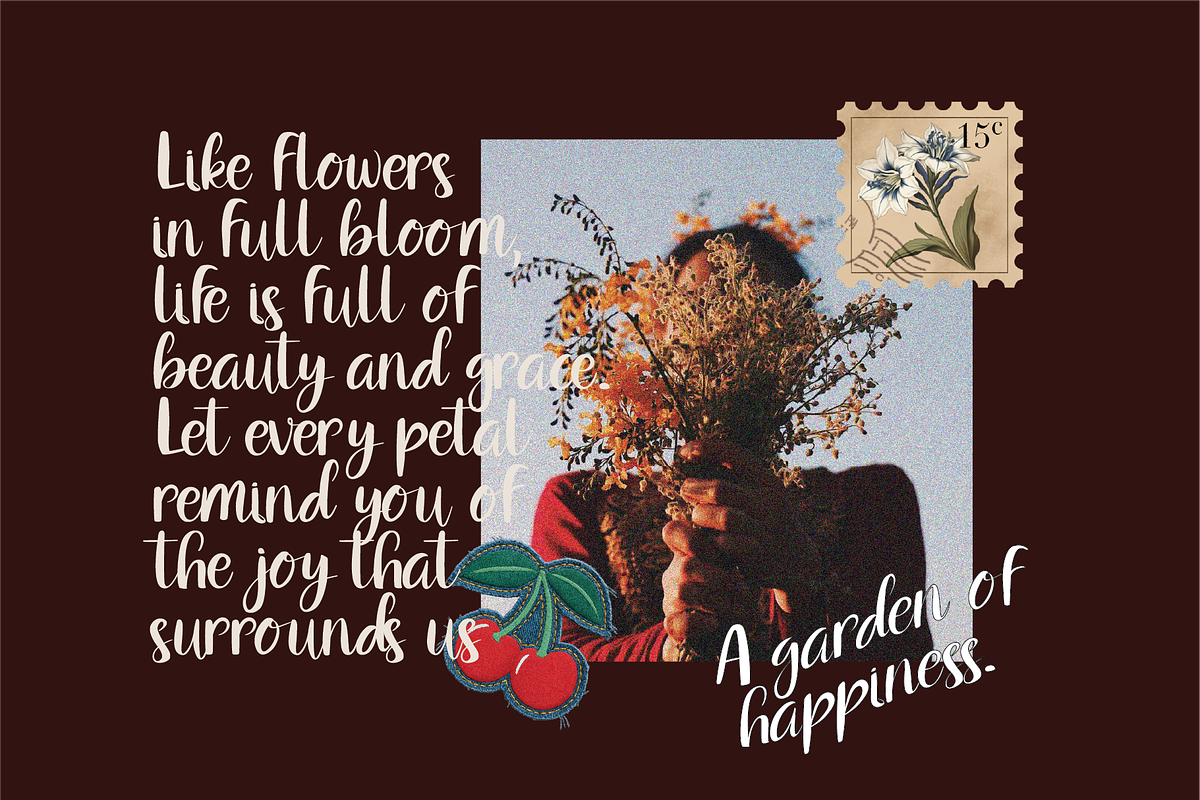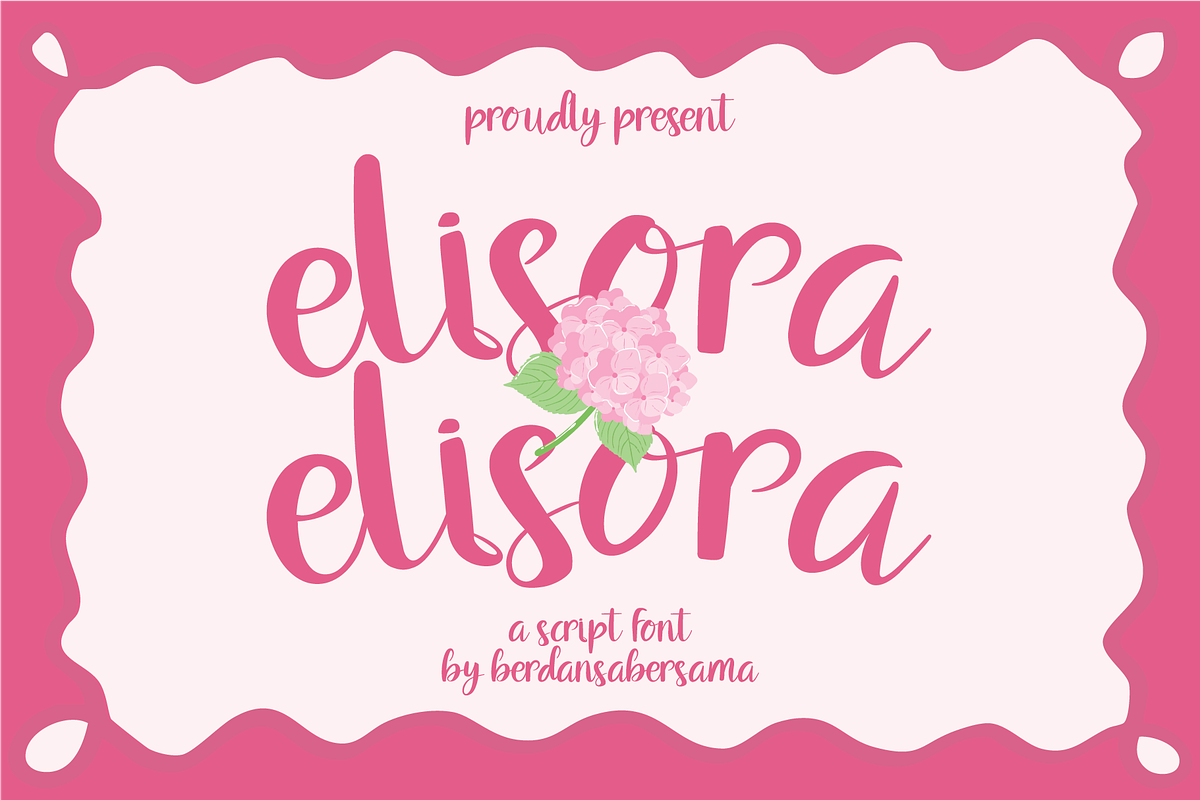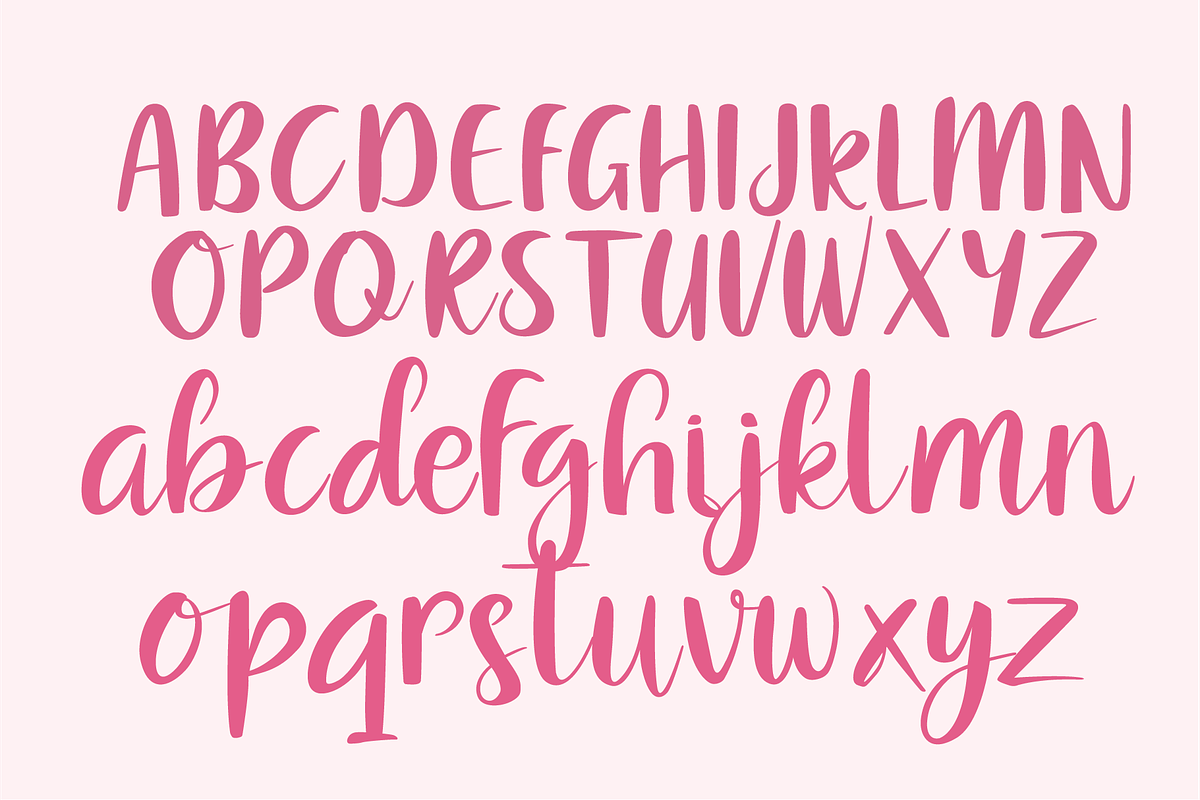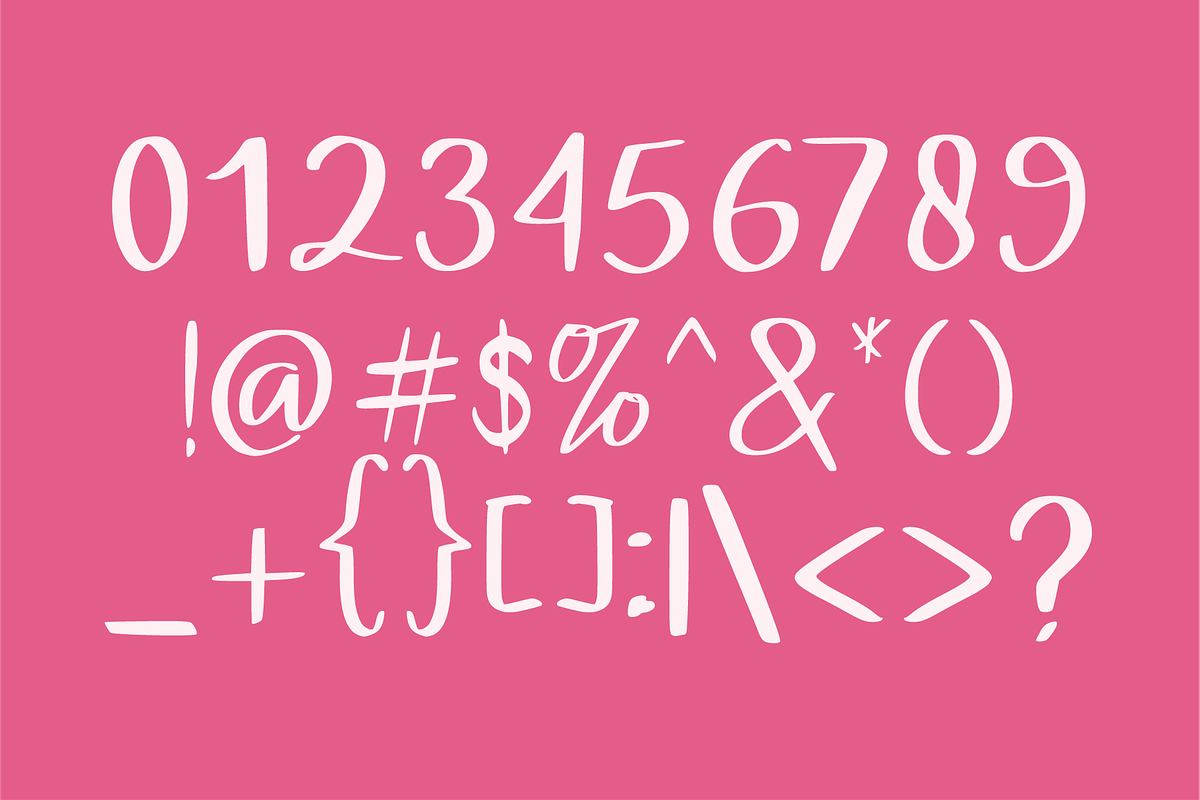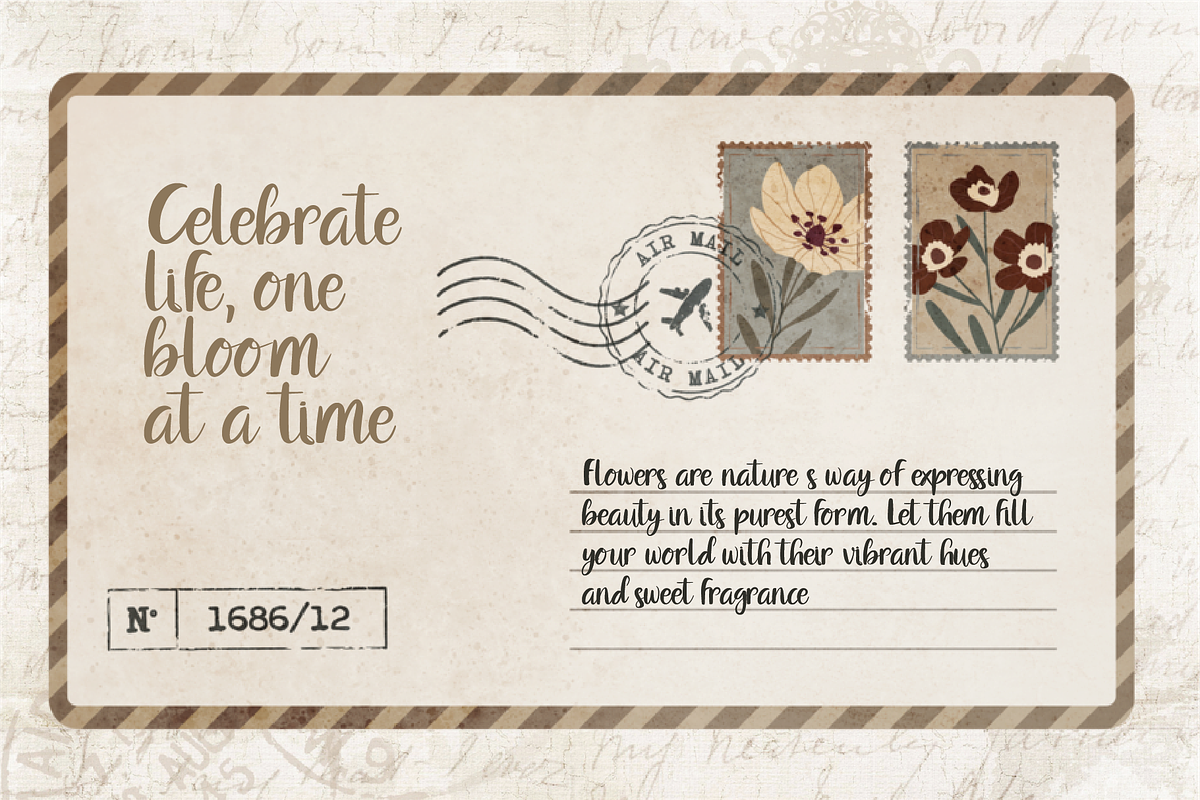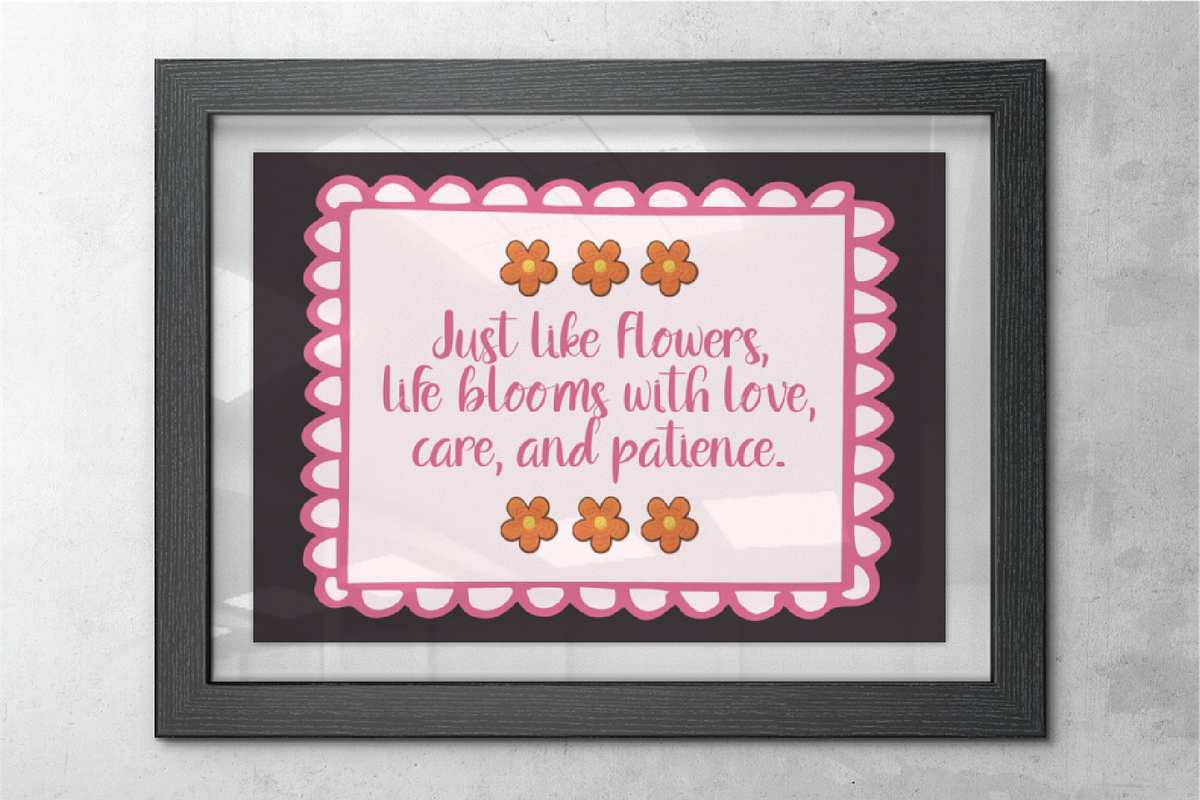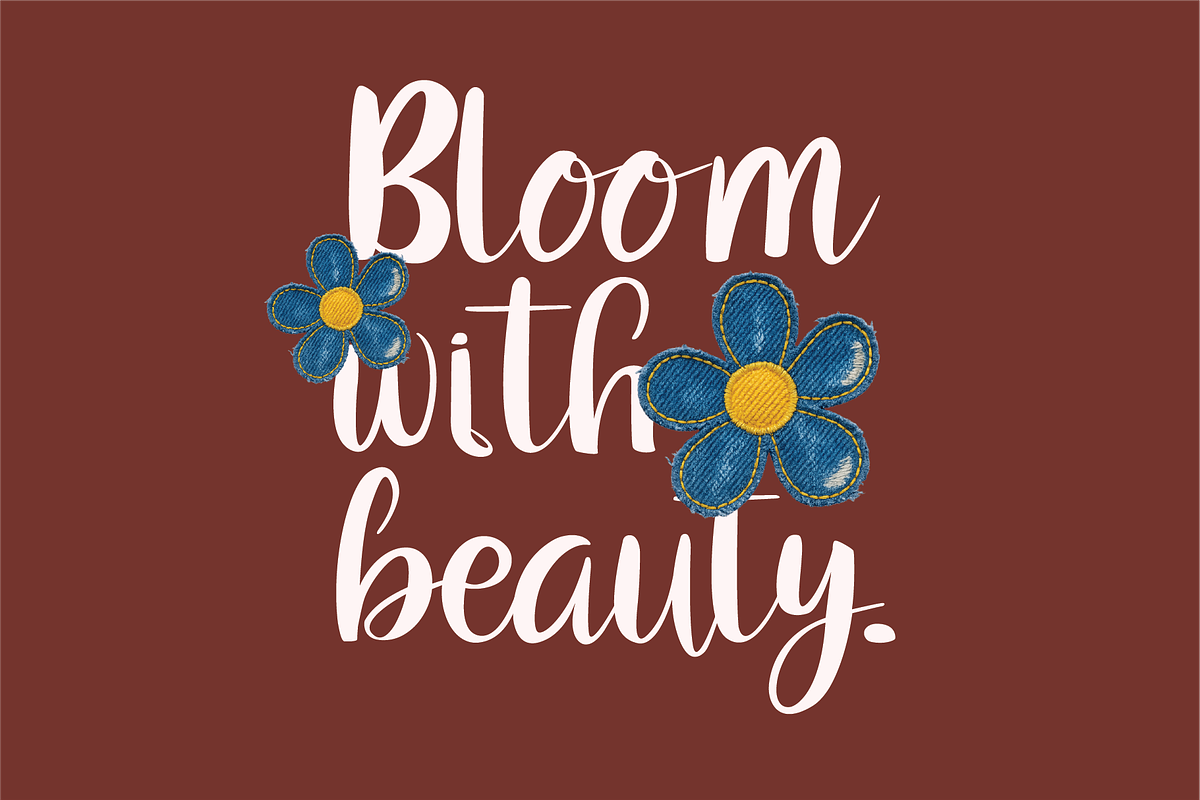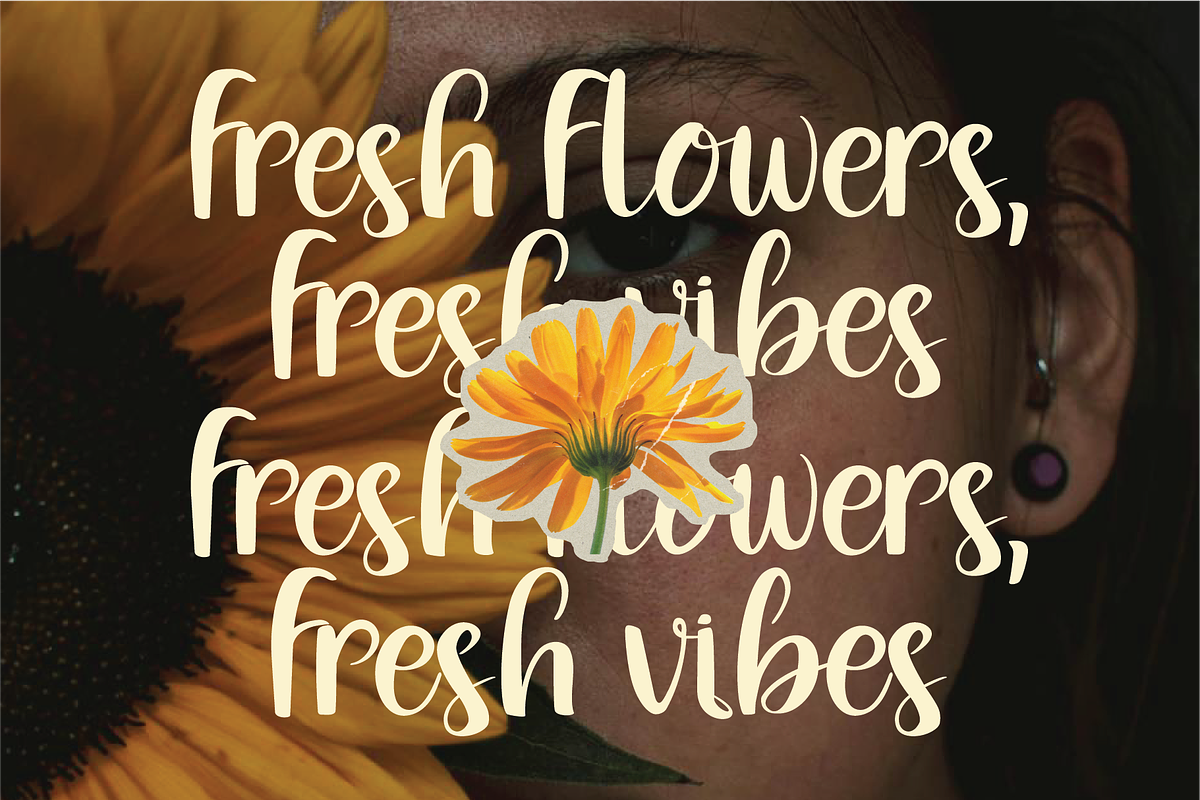
Elisora Script Font
Elisora is a playful and modern script font with smooth curves and a friendly handwritten touch. Its rounded letterforms create a soft, warm, and inviting feel, making it perfect for designs that want to express joy, sweetness, and charm. The flowing strokes and natural rhythm give the text a sense of movement and personality, while still remaining clear and easy to read.
- Numbers, marks and symbols